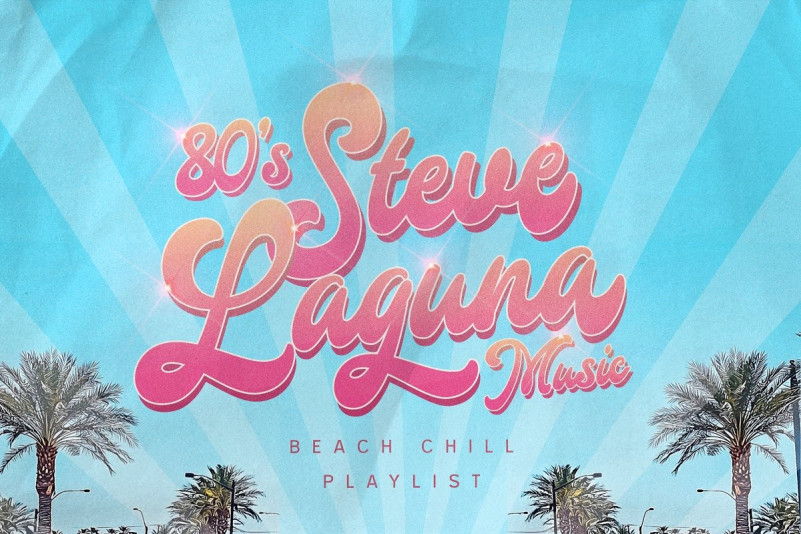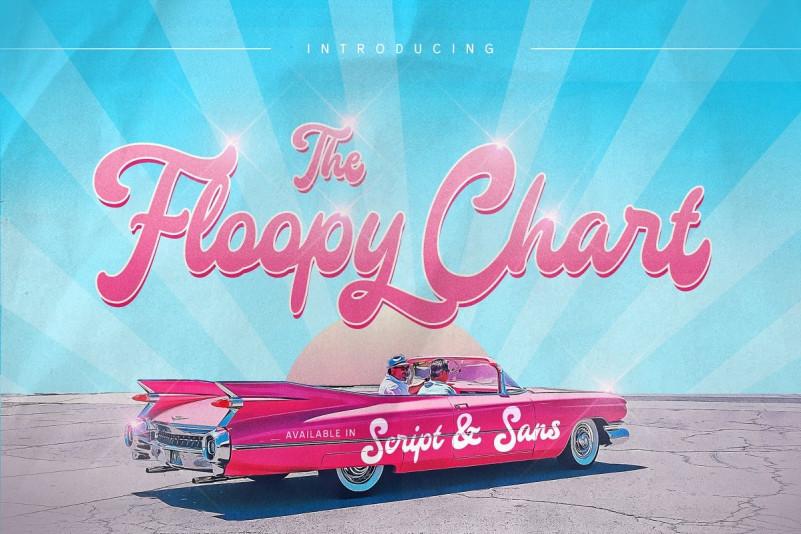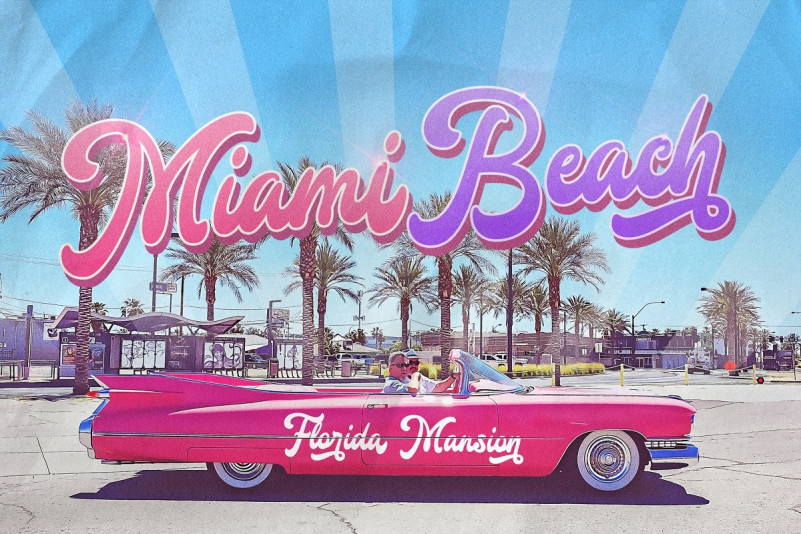
Floopy Chart Font
Floopy Chart is a pair of script and sans font, this font is truly inspired by retro and groove music vibes also from American sport scene like baseball and basketball culture.
Floopy Chart comes with uppercase, lowercase, numerals, punctuations and so many variations on each character include OpenType alternates and common ligatures to let you customize your designs. Perfect to use for Logotype, Letterhead, Poster, Apparel Design, Label and etc.